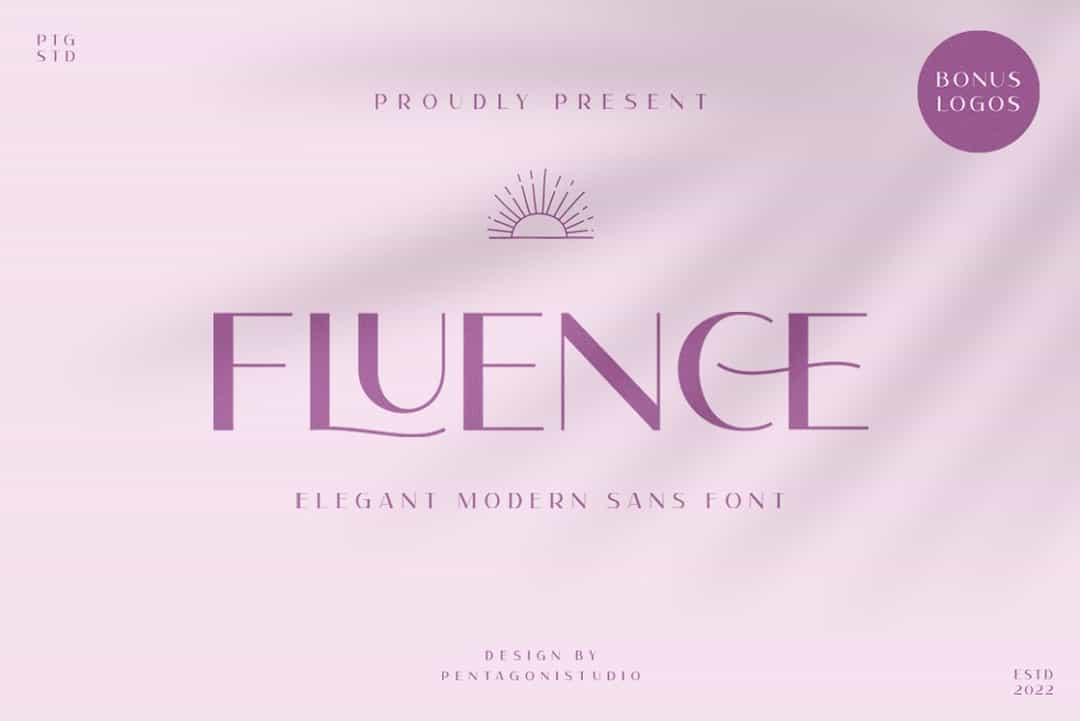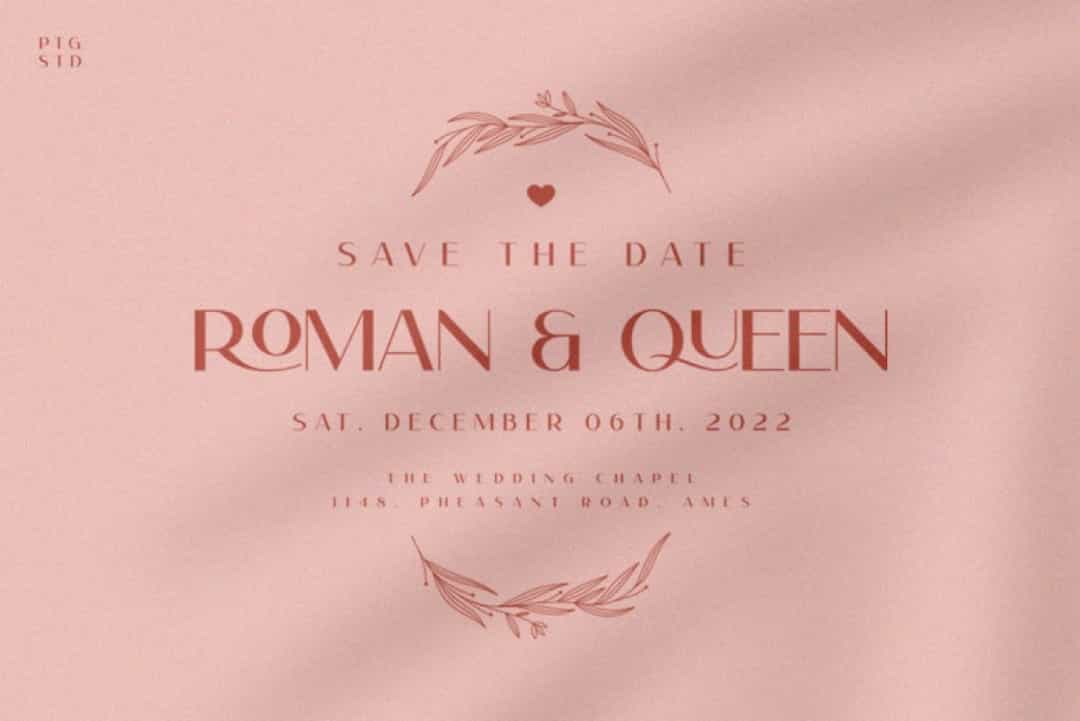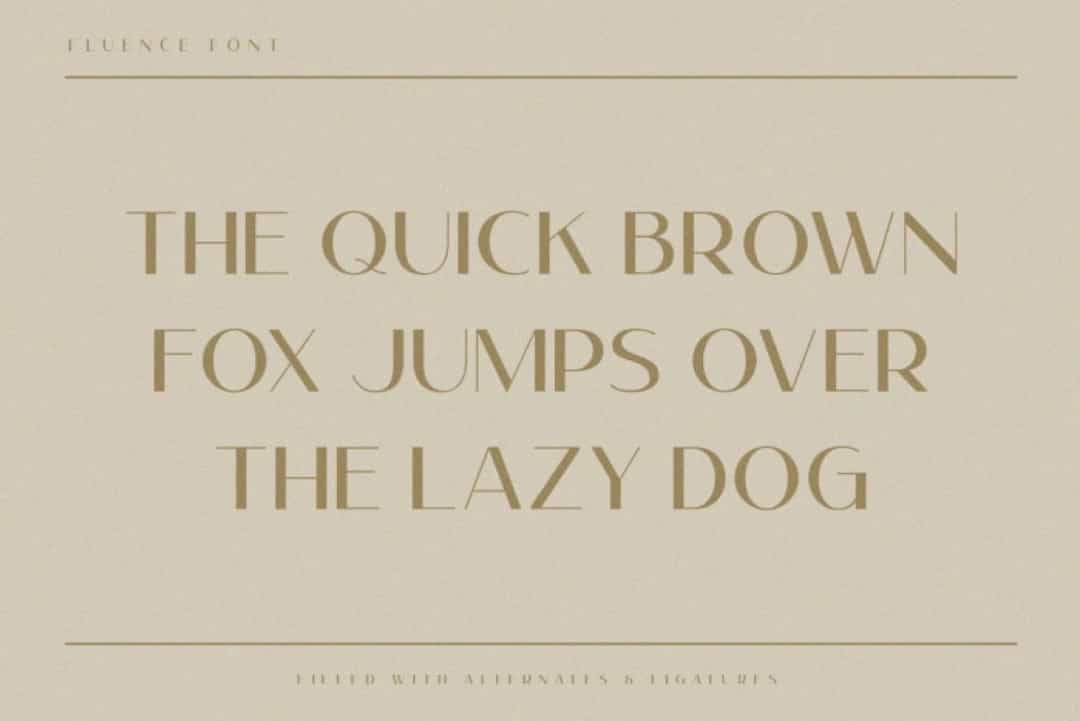
Fluence is an elegant Sans Serif font Inspired By Feminine and Elegant Character. Fluence is perfect for web design, branding, logos, invitations, magazines, and more.